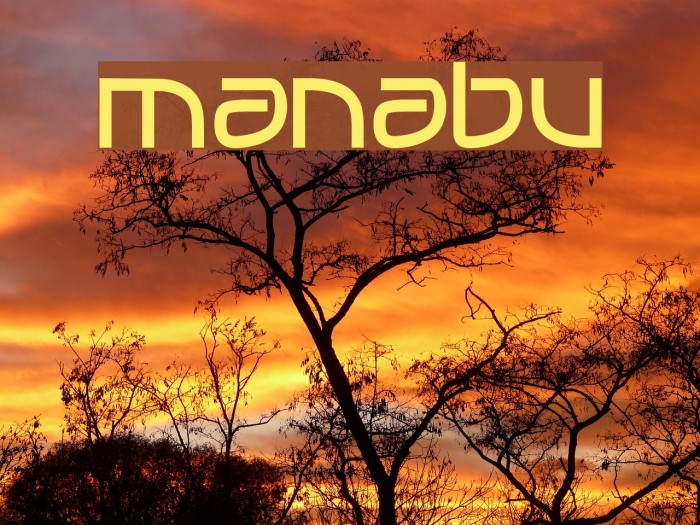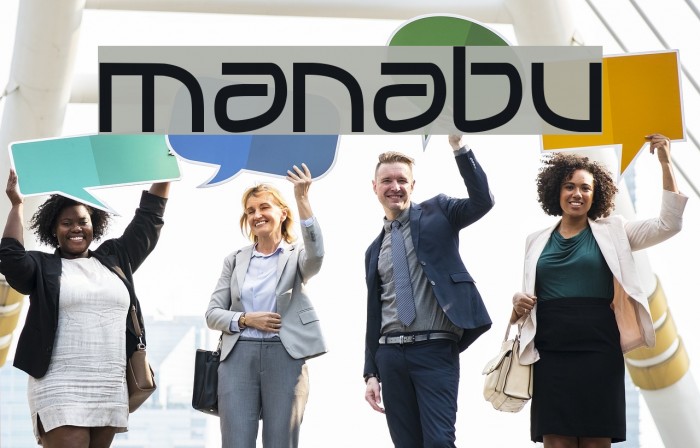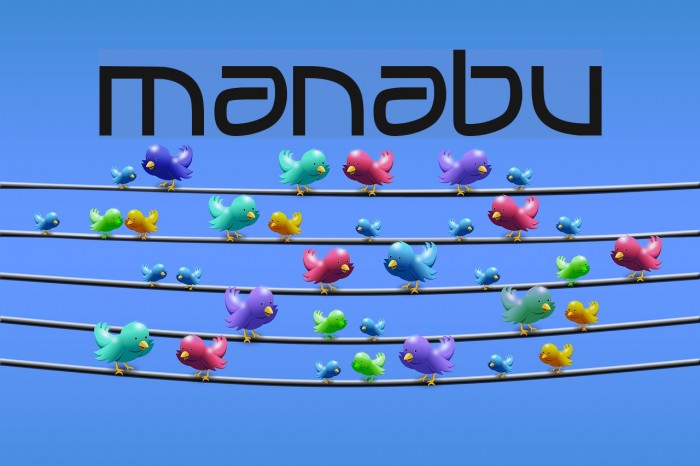
MANABU Font
This font features a modern and futuristic design with clean, geometric lines and a distinctively angular appearance. The characters are crafted with precision, showcasing a unique blend of curves and sharp edges that create a sleek and contemporary look. The uppercase and lowercase letters maintain a consistent style, emphasizing uniformity and balance. The font's design is minimalistic yet striking, making it suitable for projects that require a bold and innovative aesthetic. Its distinctive style is perfect for capturing attention while maintaining readability.
A modern, geometric font with angular lines and a sleek, futuristic appearance.
- Proposed Projects: Ideal for technology branding, sci-fi themed designs, modern advertising, and innovative product packaging.
- Overall Style: Futuristic, Geometric
- Use Case: Headlines, Logos, Branding